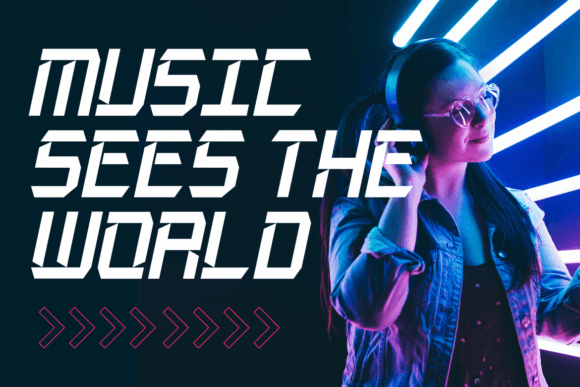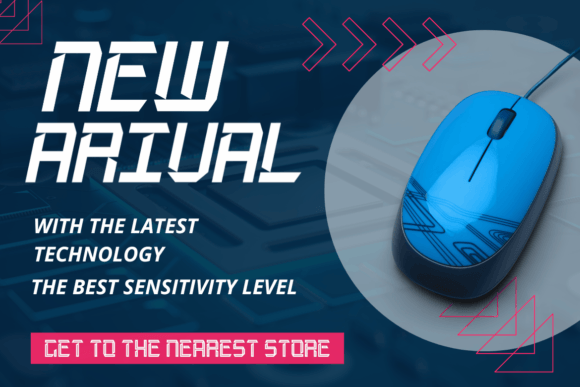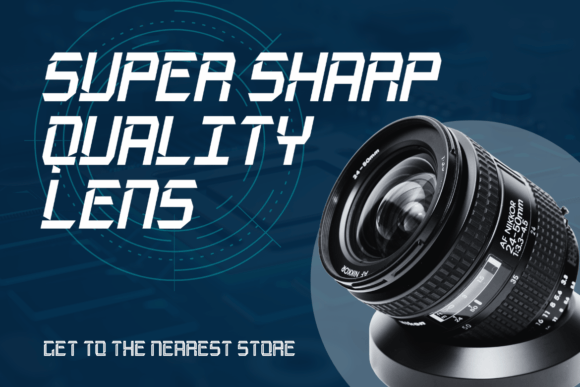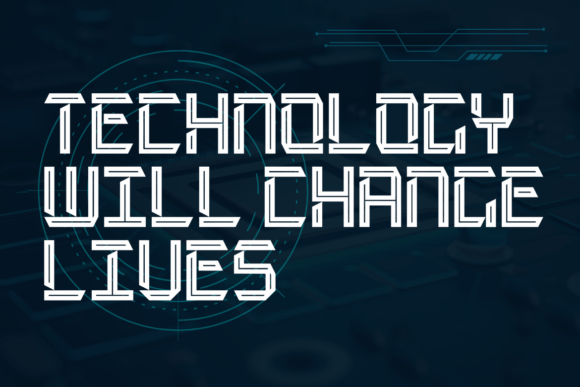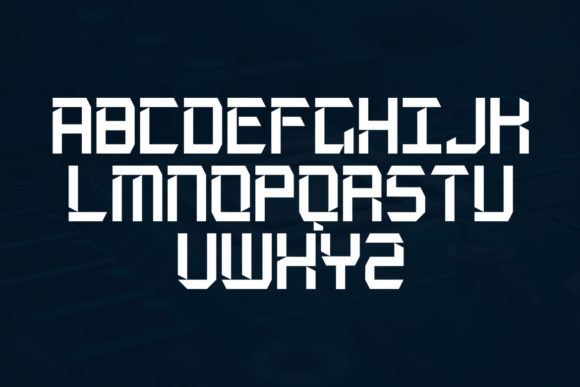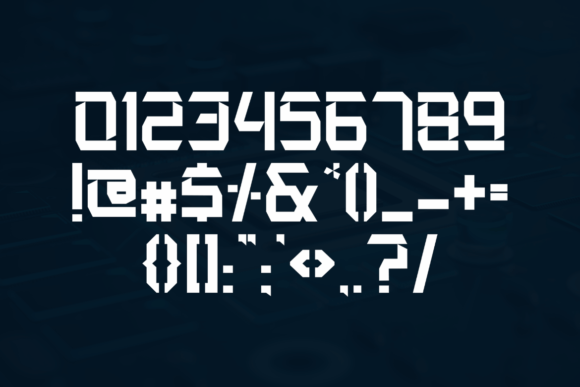
Introducing Convero Hight Font: Elevate Your Designs with a Techno Twist
In the world of design, fonts play a crucial role in conveying the message and aesthetic of a brand. For designers and crafters looking to add a techno-themed edge to their work, Convero Hight Font is an excellent choice. This display font is specifically designed to make a statement, and in this article, we’ll explore its features, uses, and benefits.
What is Convero Hight Font?
Convero Hight is a techno-themed display font that is perfect for designers who want to add a futuristic touch to their designs. Its sleek and modern design makes it ideal for a wide range of applications, from logos and banners to cards, web designs, and social media graphics.
Key Features of Convero Hight Font
- Unique Techno Design: Convero Hight boasts a distinctive techno-themed design that sets it apart from other fonts.
- High-Quality Typography: The font features high-quality typography, ensuring that your designs look professional and polished.
- Versatile: Convero Hight can be used for a variety of design projects, including logos, banners, cards, web designs, and social media graphics.
- Easily Customizable: The font is easily customizable, allowing you to adjust the size, color, and style to fit your design needs.
Uses of Convero Hight Font
Convero Hight Font is perfect for a wide range of design projects, including:
- Logos: Create a memorable and impactful logo for your brand with Convero Hight.
- Banners: Design eye-catching banners for your website, social media, or advertising campaigns.
- Cards: Add a techno touch to your business cards, greeting cards, or postcards.
- Web Designs: Use Convero Hight to create modern and sleek web designs that capture your audience’s attention.
- Social Media Graphics: Elevate your social media graphics, including Facebook posts, Twitter headers, and Instagram stories.
Benefits of Using Convero Hight Font
By incorporating Convero Hight Font into your designs, you can:
- Stand Out: The unique techno design of Convero Hight helps your designs stand out from the crowd.
- Convey a Futuristic Message: The font’s futuristic look and feel convey a sense of innovation and forward-thinking.
- Enhance Brand Identity: Convero Hight can help you create a consistent brand identity across various design platforms.
- Save Time: The font’s versatility and customizability save you time and effort in finding the perfect typography for your designs.
Convero Hight Font is an excellent choice for designers and crafters looking to add a techno-themed edge to their work. Its unique design, high-quality typography, and versatility make it perfect for a wide range of design projects. By incorporating Convero Hight into your designs, you can stand out, convey a futuristic message, enhance your brand identity, and save time. So why wait? Download Convero Hight Font today and elevate your designs to the next level!